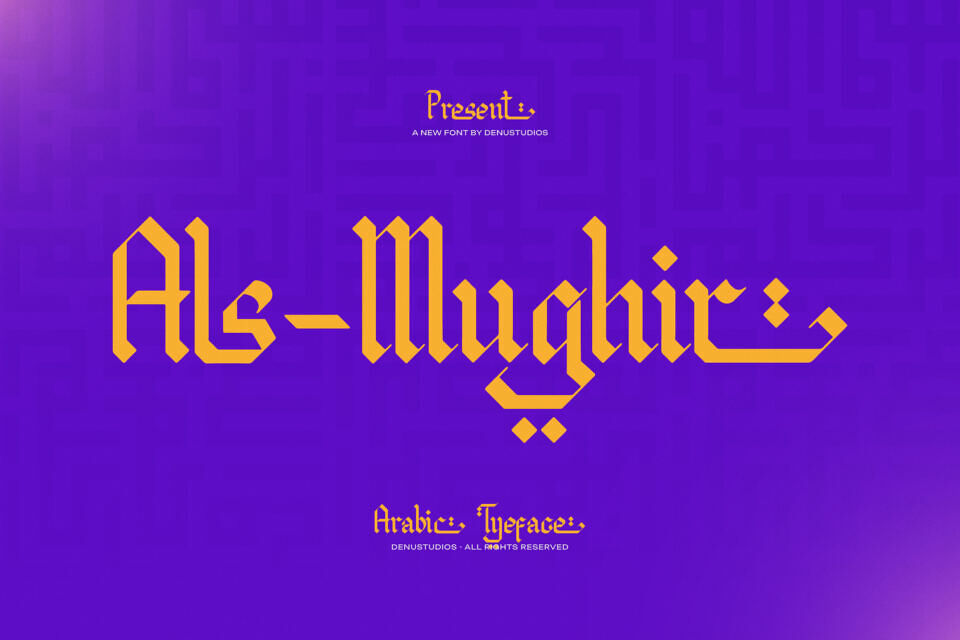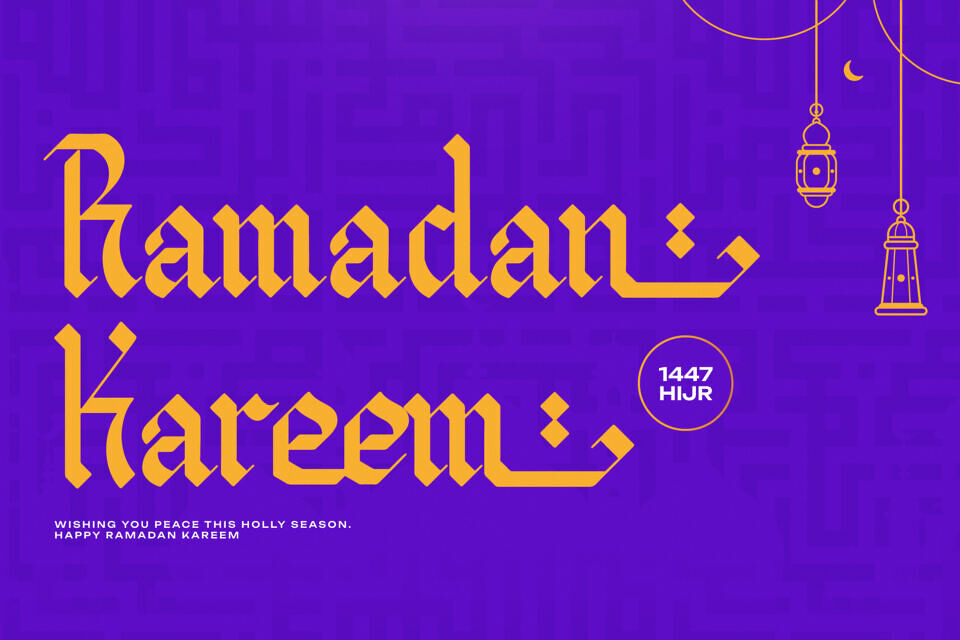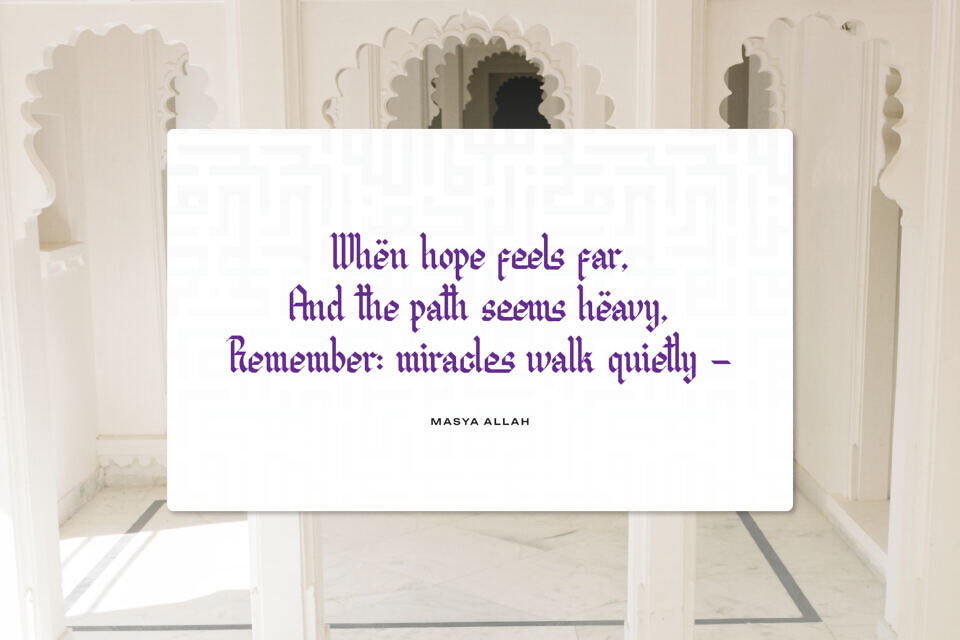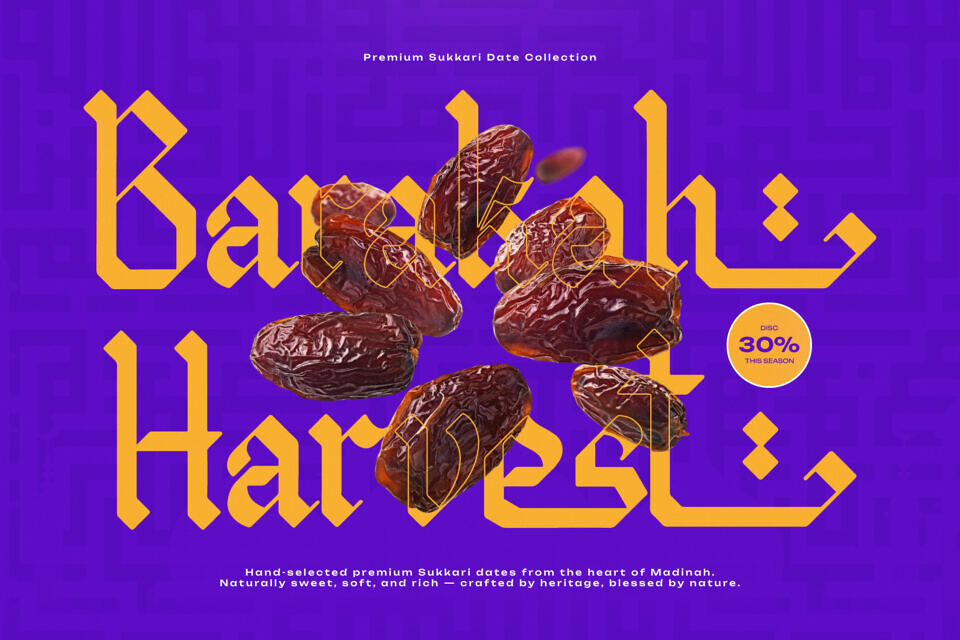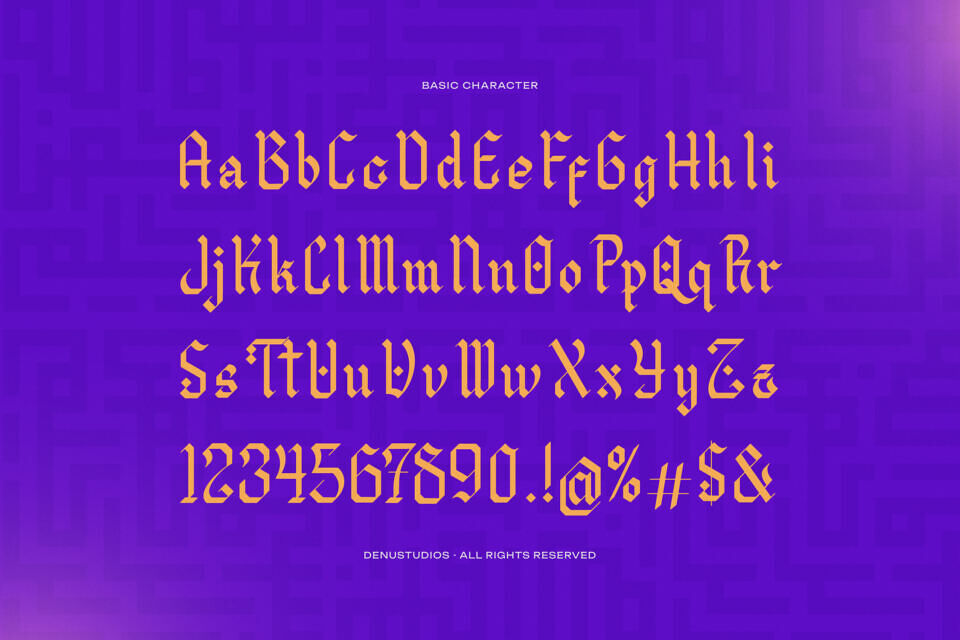
Al Mughir is an Arabic Typeface from Denustudios, suitable for any projects such as: logos, branding projects, homeware designs, product packaging, mugs, quotes, posters, shopping bags, t-shirts, book covers, name card, invitation cards, greeting cards, label, photography, watermark, special events, and all your other lovely projects that need a Arabic taste.